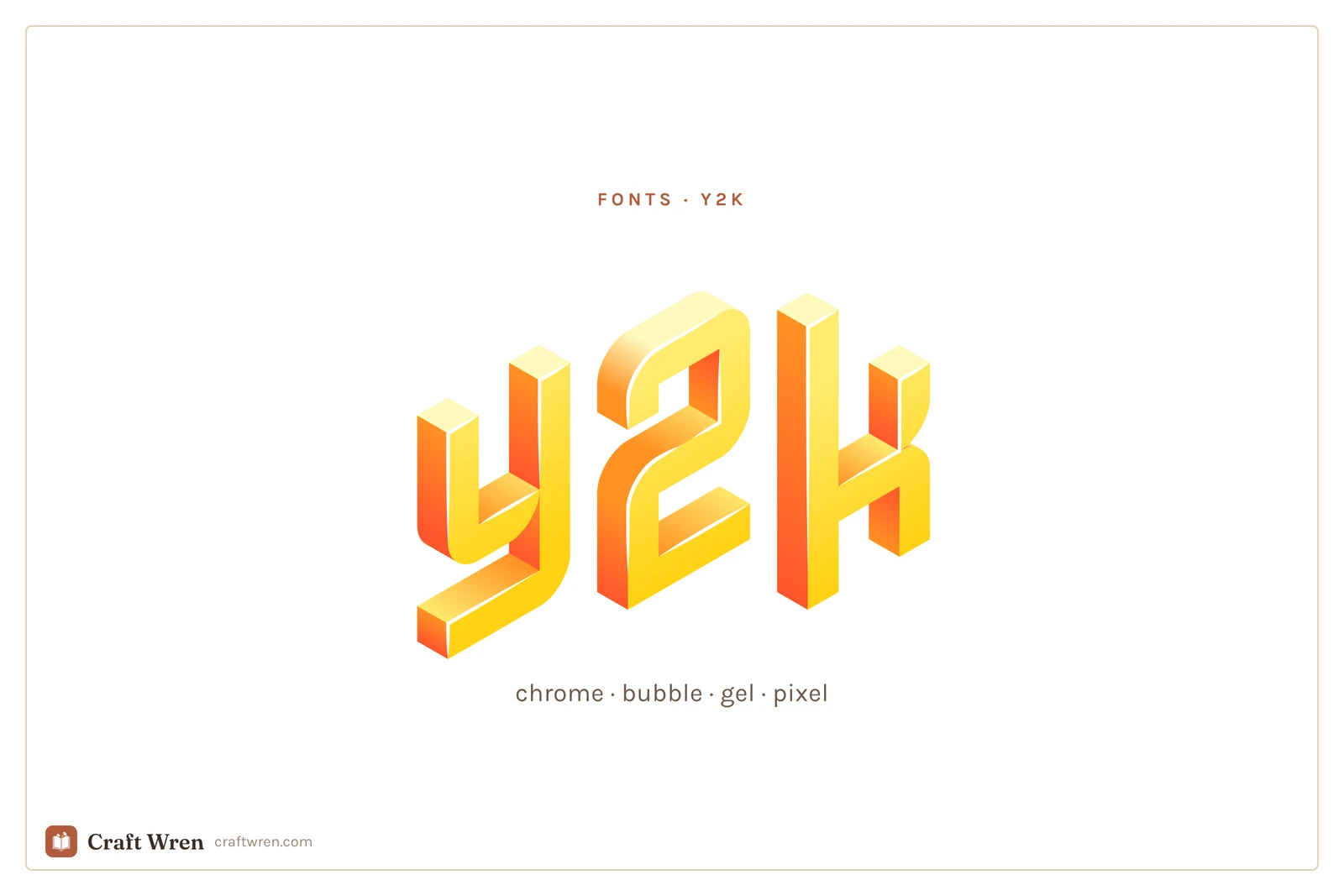
Y2k Fonts: Chrome, Bubble, and Pixel Picks for the Early-2000s Look
You are making something y2k. A birthday invite, a set of phone wallpapers, the cover art for a playlist that is all 2002. You can see it in your head: glossy, chrome, a little bratz-doll, a little Windows XP. Then you type the words in whatever font was already loaded and it comes out looking like a tax form. The vibe was in the lettering the whole time, and the lettering is the one thing you did not have.
Y2k is having a full revival, and the fonts are most of the work. Get the typeface right and a plain photo snaps straight back to 2003. Get it wrong and no amount of butterfly clips and lens flare will save it.
Y2k fonts are display typefaces that revive the late-90s and early-2000s look, including chrome and metallic, inflated bubble, gel and aqua, and blocky pixel styles. You use them big, for titles and single words, and keep the rest of the text plain.
The thing is, “y2k” is not one look. It is four or five, and they do not mix well. So pick the sub-style first.
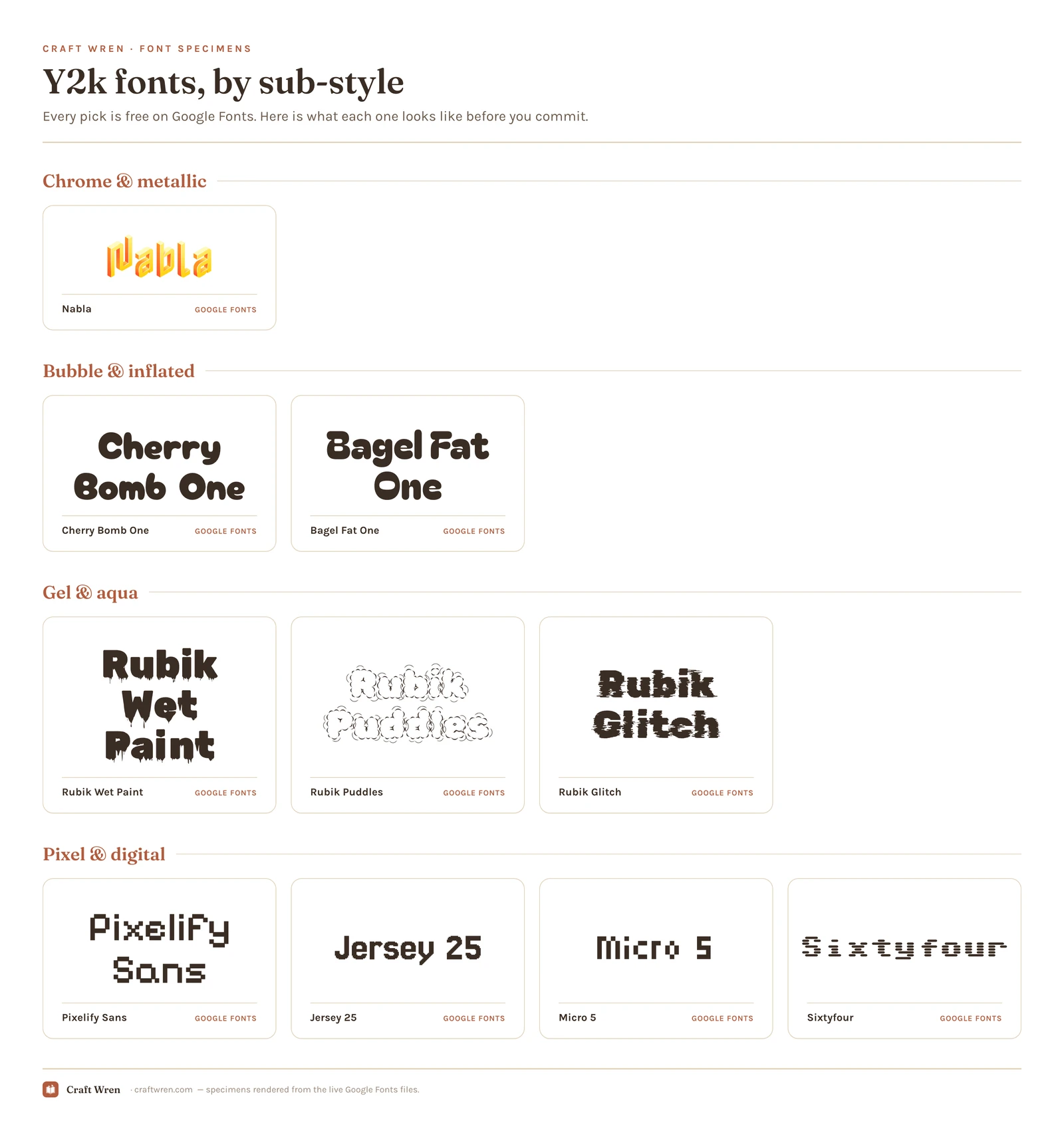
The ten y2k fonts side by side
Smallest print size is measured from each font file: the letter height at which the thinnest part of the stroke drops to 0.25 mm, which is roughly where home printing starts dropping the line. Screens forgive more, vinyl forgives less. Nabla is a colour font, so a stroke measurement does not apply.
| Font | Sub-style | What it gives you | Smallest print size |
|---|---|---|---|
| Nabla | Chrome | Colour font: chrome with no editing | — |
| Cherry Bomb One | Bubble | Inflated roundness that survives shrinking | 1.7 mm |
| Bagel Fat One | Bubble | The same puffed look, a touch wider | 2.1 mm |
| Rubik Wet Paint | Gel | Liquid, dripping gloss | 12.0 mm |
| Rubik Puddles | Gel | Melting letters, titles only | 20.0 mm |
| Rubik Glitch | Gel | The corrupted-screen variant | 20.1 mm |
| Micro 5 | Pixel | Tiny true-retro, straight off a 2002 Nokia | 1.3 mm |
| Pixelify Sans | Pixel | Readable enough to carry a whole title | 1.5 mm |
| Jersey 25 | Pixel | Chunkier: arcade cabinet, not cellphone | 1.6 mm |
| Sixtyfour | Pixel | Leans hardest into the boot-up screen look | 3.5 mm |
The chrome and metallic look
Liquid-silver letters with a hard highlight running across them, the kind that lived on every nu-metal album cover and energy-drink can. This is the loud one: shiny, slightly aggressive, unmistakably 2001.
True chrome is hard to fake, because the shine has to be baked into the letterforms. On Google Fonts, Nabla is the surprise pick: it is a built-in color font with a beveled, metallic 3D face, so it renders chrome straight out of the box with no editing. For the heavier liquid-metal styles, search “chrome” or “y2k” on dafont and Creative Fabrica, where the dedicated metallic display faces live. Use chrome on one word. Two chrome words start to look like a wrestling poster.
The bubble and inflated look
Fat, rounded, puffed up like the letters were filled with air. This is the friendliest y2k style, the one that shows up on early-2000s kids’ brands and bubblegum-pop covers. It pairs well with the girly aesthetic, so if your project leans more cute than edgy, start here.
Cherry Bomb One and Bagel Fat One, both on Google Fonts, give you that inflated roundness for free and read cleanly even at smaller sizes. They are the rare y2k fonts that survive being shrunk down to a sticker. For more in this lane, the girly fonts guide overlaps heavily.
The gel and aqua look
Think the original Mac OS X “Aqua” buttons: glassy, candy-colored, wet-looking letters that seem to have a droplet of water sitting on them. It is the dreamiest y2k style and the most dated in the best way.
Google’s experimental Rubik family covers this beautifully: Rubik Wet Paint and Rubik Puddles both have that liquid, dripping-gloss quality, and Rubik Glitch handles the corrupted-screen variant. All free, all installable in Canva and Docs. For a glossier candy gel, dafont’s aqua category is the deep well.
The pixel and digital look
Blocky, low-resolution letters built from visible squares, like text on a 2002 cellphone or an old computer boot screen. This is the techy end of y2k, less Bratz and more dial-up.
Google Fonts is generous here. Pixelify Sans is the readable one, clean enough to carry a longer title without dissolving into static. Jersey 25 runs chunkier, more arcade cabinet than cellphone. Micro 5 is the tiny true-retro option, the kind of type that looks trapped in a 2002 Nokia screen. Sixtyfour leans hardest into the old-computer boot-up look. None of them need a download in Canva.
Why these fonts read as y2k
None of this was an accident. The chrome came from designers getting their hands on early 3D software and rendering everything in liquid metal because they finally could. The bubble shapes rode the same millennium optimism that gave us inflatable chairs and gummy translucent gadgets. The pixel fonts were not nostalgic yet, they were just what low-resolution screens could display, from your first cellphone to the family desktop.
How do I make text look chrome or metallic?
The cleanest way is to start with a font that already has the chrome baked in, like Nabla, so the shine is part of the letterforms. Otherwise you are layering gradients and bevels by hand in an editor, which rarely looks as convincing as a purpose-built metallic typeface.